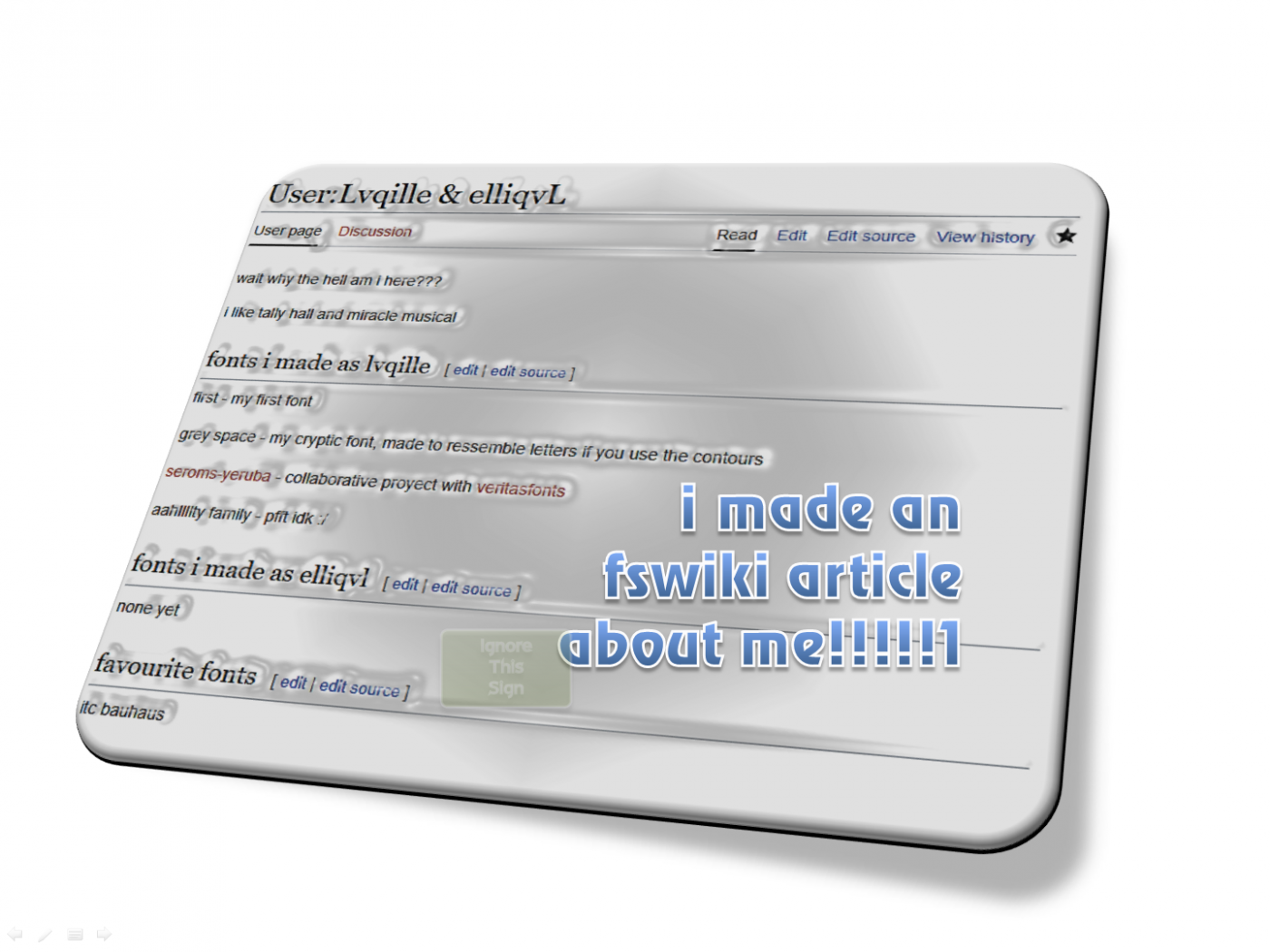
• the font i'm working on
There are a lot of things to improve in this font (increase accent size, connect cedilla to c). Why's the a in æ 2 storey? Still, great font. 10/10 :)
to not confuse it to Œ